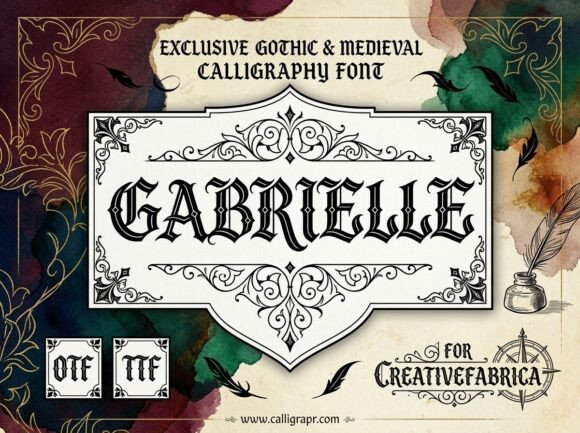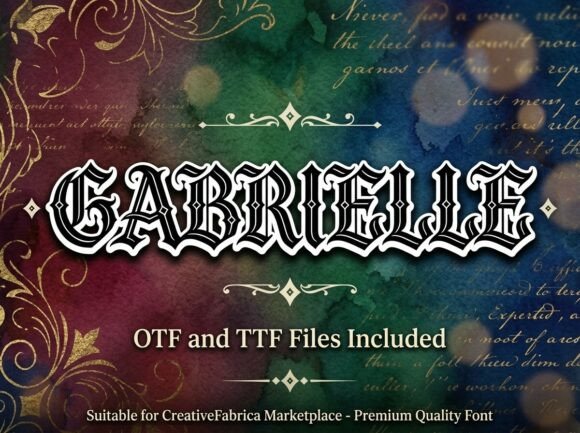
Elevate Your Designs with the Timeless Elegance of Gabrielle Font
In the realm of typography, few fonts manage to convey the perfect blend of elegance, authority, and modernity. Gabrielle, a premium quality blackletter font, stands out as a masterpiece that ticks all these boxes and more. Designed to make a maximum impact, Gabrielle brings a classic yet contemporary twist to traditional Gothic calligraphy, making it an indispensable tool for designers and crafters aiming to elevate their projects.
The Distinctive Characteristics of Gabrielle Font
Gabrielle’s design is marked by sharp, angular strokes that give it a strong and commanding presence. One of its most distinctive features is the diamond-shaped counters, which add a unique touch to the traditional Gothic style. These counters, combined with the heavy visual weight of the font and clean white outlines, create a striking 3D effect. This effect not only ensures legibility across various applications but also imparts a sense of historical prestige and luxury.
One of the key strengths of Gabrielle font is its versatility. Its unique blend of modernity and tradition makes it suitable for a wide range of design applications. For luxury certificates and high-end spirit labels, Gabrielle offers a sense of exclusivity and premium quality. Its historical undertones also make it a perfect fit for book covers, especially for historical fiction or classic literature. Moreover, the edgy and sophisticated vibe of Gabrielle can be leveraged to create standout streetwear branding that seeks to make a bold statement.
Crafting Logos and Editorial Headers with Impact
When it comes to crafting logos for heritage brands or creating editorial headers that demand attention, Gabrielle font proves to be an exceptional choice. Its artistic power and timeless sophistication mean that every word carries weight and elegance, making it ideal for designers looking to imbue their projects with a sense of authority and prestige. Whether you’re aiming to evoke a sense of history or simply want to ensure your design stands out, Gabrielle provides the perfect blend of aesthetic appeal and functional design.
Why Choose Gabrielle for Your Design Projects?
- Unique Aesthetic: Offers a modern take on traditional Gothic calligraphy, providing a distinctive look that sets it apart from more conventional fonts.
- Legibility and Impact: The 3D effect created by its design ensures that your text is not only readable but also visually striking.
- Versatility: Suitable for a wide range of applications, from luxury branding to historical publications and modern streetwear.
- Timeless Sophistication: Brings a sense of artistic power and timeless elegance to any project, ensuring it remains relevant for years to come.
Gabrielle font is more than just a typeface; it’s a design statement that combines the best of traditional Gothic calligraphy with a modern edge. Its unique features, versatility, and the sense of authority and sophistication it conveys make it an invaluable asset for designers and crafters. Whether you’re working on a luxury brand project, a historical publication, or an edgy streetwear line, Gabrielle offers the perfect blend of elegance, impact, and timelessness to elevate your designs.